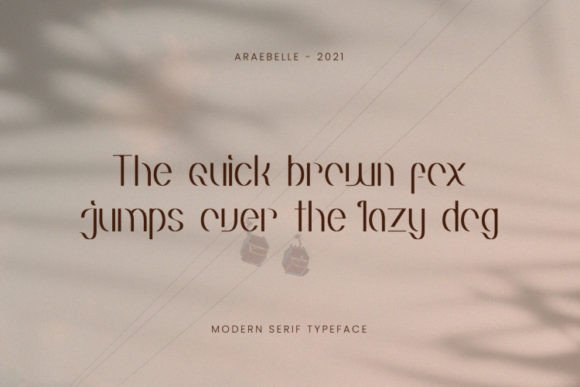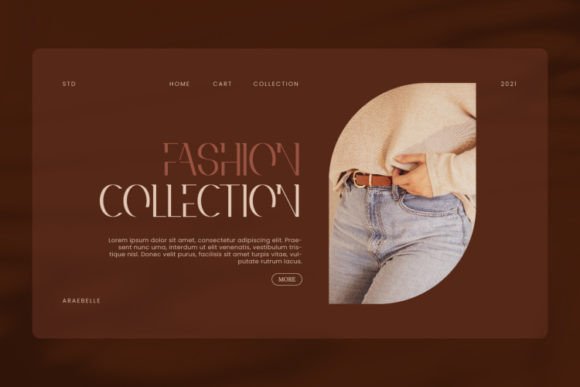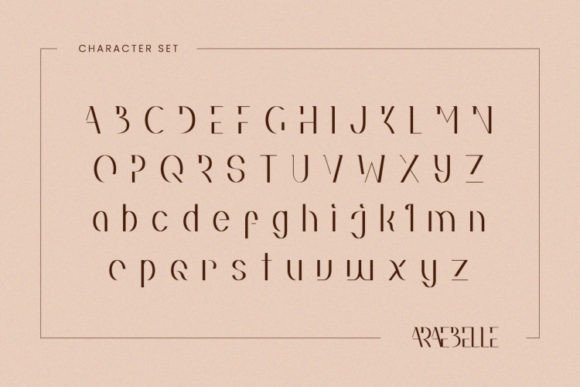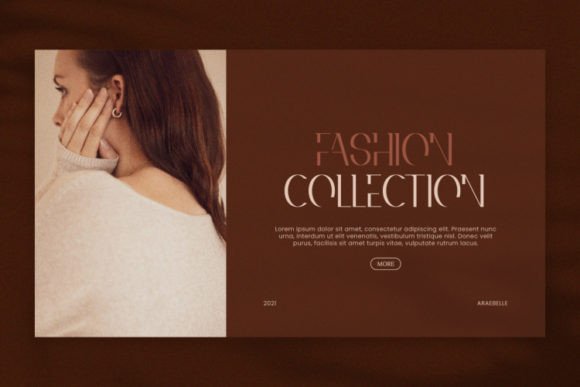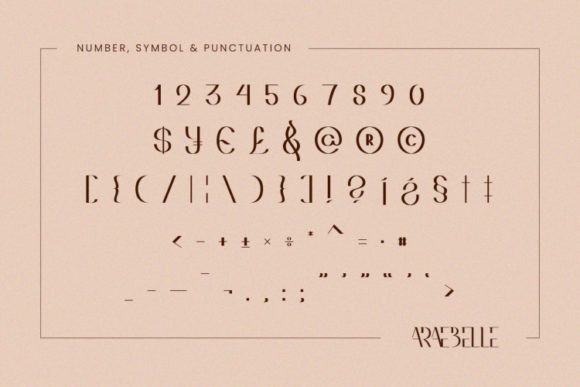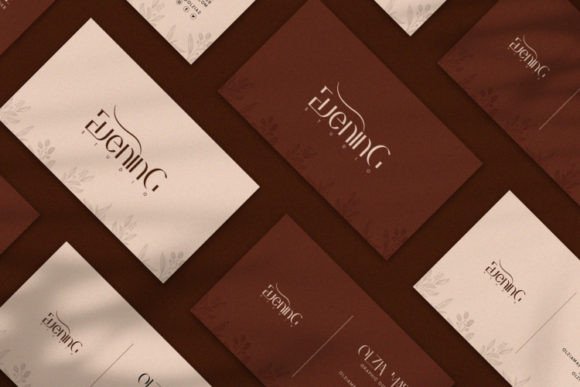
Araebelle Font: Elevate Your Designs with Elegance and Sophistication
In the world of typography, a good font can make all the difference in creating a lasting impression. For designers and crafters, finding the perfect typeface that combines style, versatility, and elegance can be a daunting task. However, if you’re looking for a modern and elegant serif typeface that can elevate any creation, look no further than Araebelle Font.
What is Araebelle Font?
Araebelle Font is a stunning serif typeface that exudes sophistication and refinement. Designed with modernity in mind, this font boasts a unique blend of classic and contemporary elements, making it perfect for a wide range of design projects. Whether you’re working on a branding campaign, a website, or a crafting project, Araebelle Font is sure to impress.
Key Features of Araebelle Font
So, what makes Araebelle Font so special? Here are some of its key features:
- Modern and Elegant Design: Araebelle Font features a sleek and sophisticated design that’s perfect for creating stunning visual content.
- Serif Typeface: The font’s serif design adds a touch of classic elegance to any project, making it ideal for designs that require a sense of tradition and heritage.
- Versatile: Araebelle Font is incredibly versatile, making it suitable for a wide range of design projects, from branding and advertising to crafting and digital design.
- High-Quality: This font is designed with high-quality in mind, ensuring that it looks great in any size or resolution.
Why Choose Araebelle Font?
With so many fonts available, why choose Araebelle Font? Here are just a few reasons:
- Elevate Your Designs: Araebelle Font has the potential to elevate any creation, adding a touch of elegance and sophistication that’s sure to impress.
- Stand Out from the Crowd: With its unique blend of modern and classic elements, Araebelle Font is sure to help your designs stand out from the crowd.
- Save Time: With Araebelle Font, you can create stunning visual content quickly and easily, saving you time and effort.
- Perfect for Designers and Crafters: Whether you’re a professional designer or a crafter, Araebelle Font is perfect for anyone looking to create beautiful and effective designs.
How to Use Araebelle Font
Using Araebelle Font is easy! Here are a few tips to get you started:
- Pair it with Other Fonts: Araebelle Font pairs perfectly with other fonts, making it easy to create stunning font combinations.
- Experiment with Different Sizes: Don’t be afraid to experiment with different sizes and resolutions to see how Araebelle Font looks in different contexts.
- Use it for Headings and Titles: Araebelle Font is perfect for headings and titles, adding a touch of elegance and sophistication to any design.
- Try it for Body Text: While Araebelle Font is perfect for headings, it’s also suitable for body text, making it a versatile addition to any font library.
In conclusion, Araebelle Font is a modern and elegant serif typeface that’s perfect for designers and crafters looking to elevate their designs. With its unique blend of classic and contemporary elements, this font is sure to impress. Whether you’re working on a branding campaign, a website, or a crafting project, Araebelle Font is an incredible asset to your font library. So why wait? Download Araebelle Font today and start creating stunning visual content that stands out from the crowd!